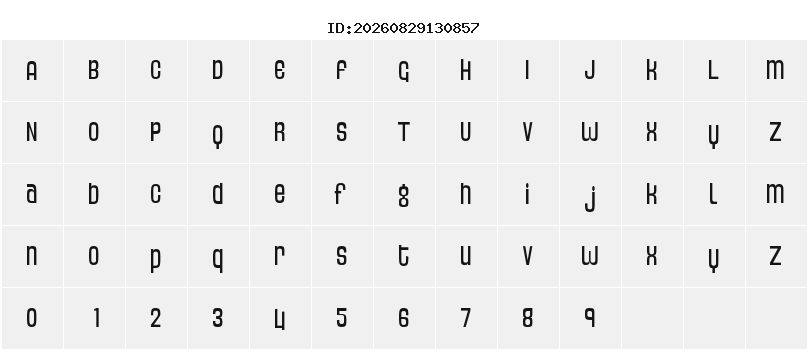
• Font Name: Thin Dime
• Full Font Name: Thin Dime
About Thin Dime.ttf
Thin Dime.ttf is a modern, elegant sans-serif font designed for ultimate readability and visual harmony. Perfect for branding, headlines, web design, and print materials.